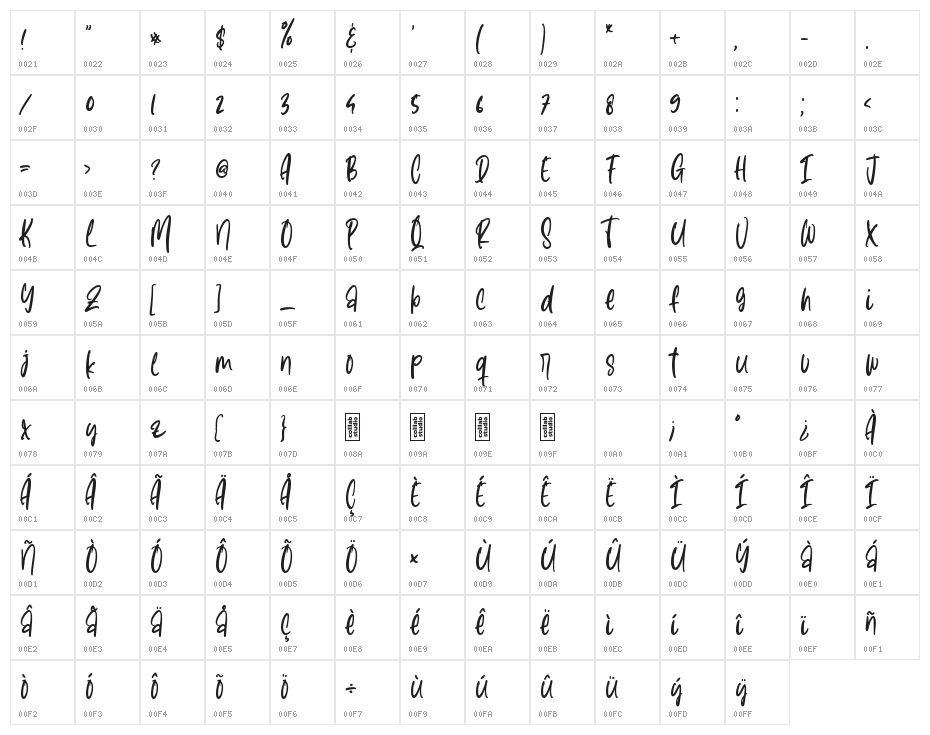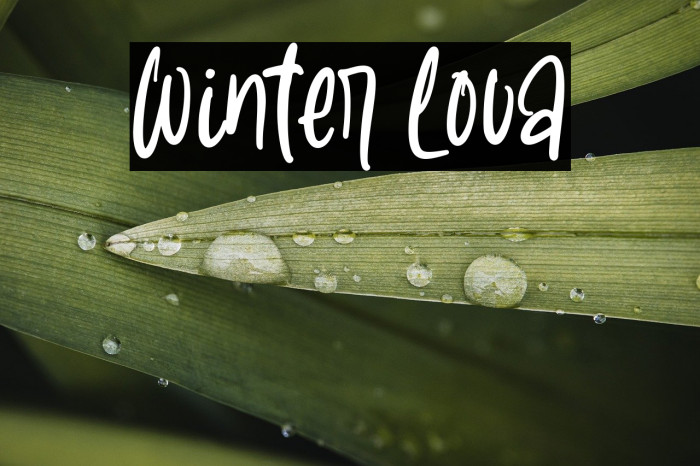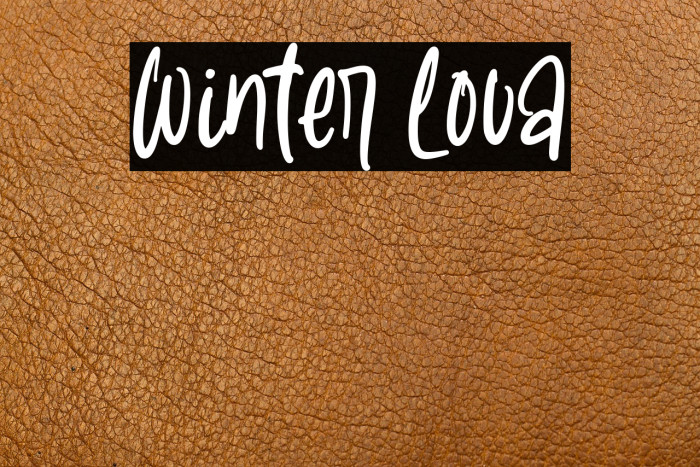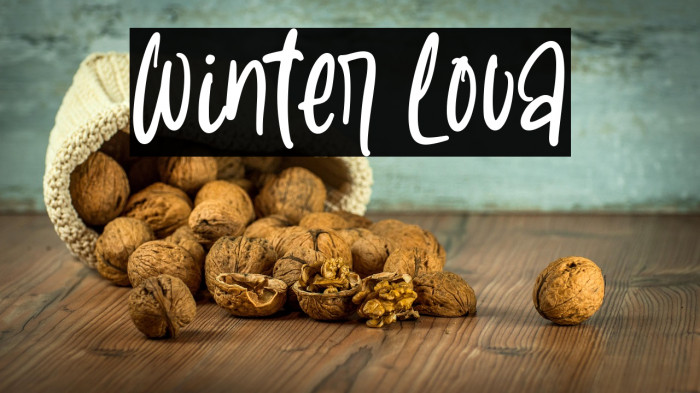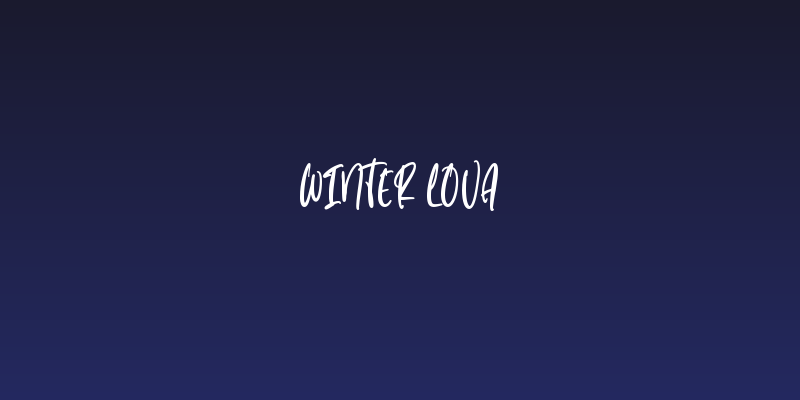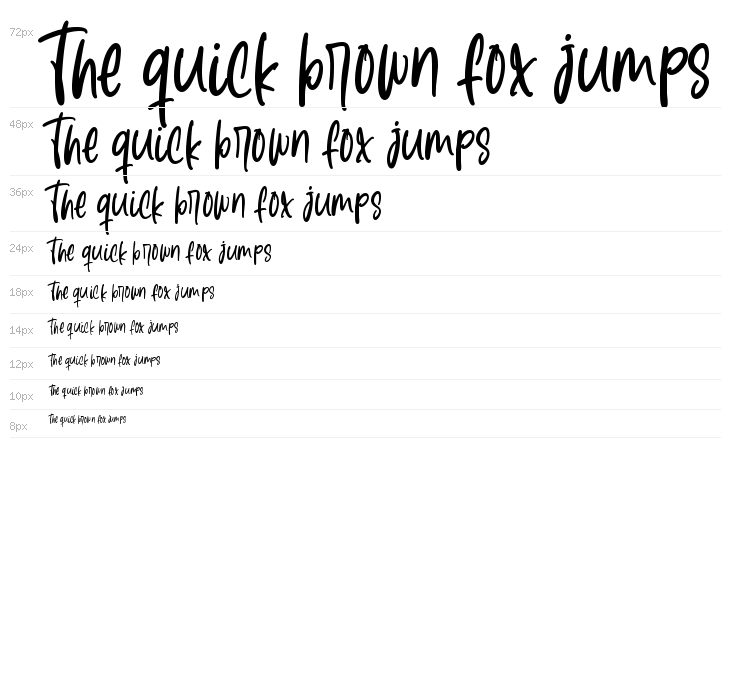
Winter Lova Font
Winter Lova Description
This font features a lively and expressive handwritten style, characterized by its fluid and dynamic strokes. The letters are slightly slanted, giving a sense of movement and energy. The uppercase and lowercase letters maintain a consistent flow, with some playful variations in the curves and loops. The numbers and special characters complement the overall style, adding to its versatility. This font exudes a casual and friendly vibe, making it suitable for creative and informal projects.
| Proposed Projects | Ideal for greeting cards, invitations, social media graphics, and branding projects that require a personal touch. |